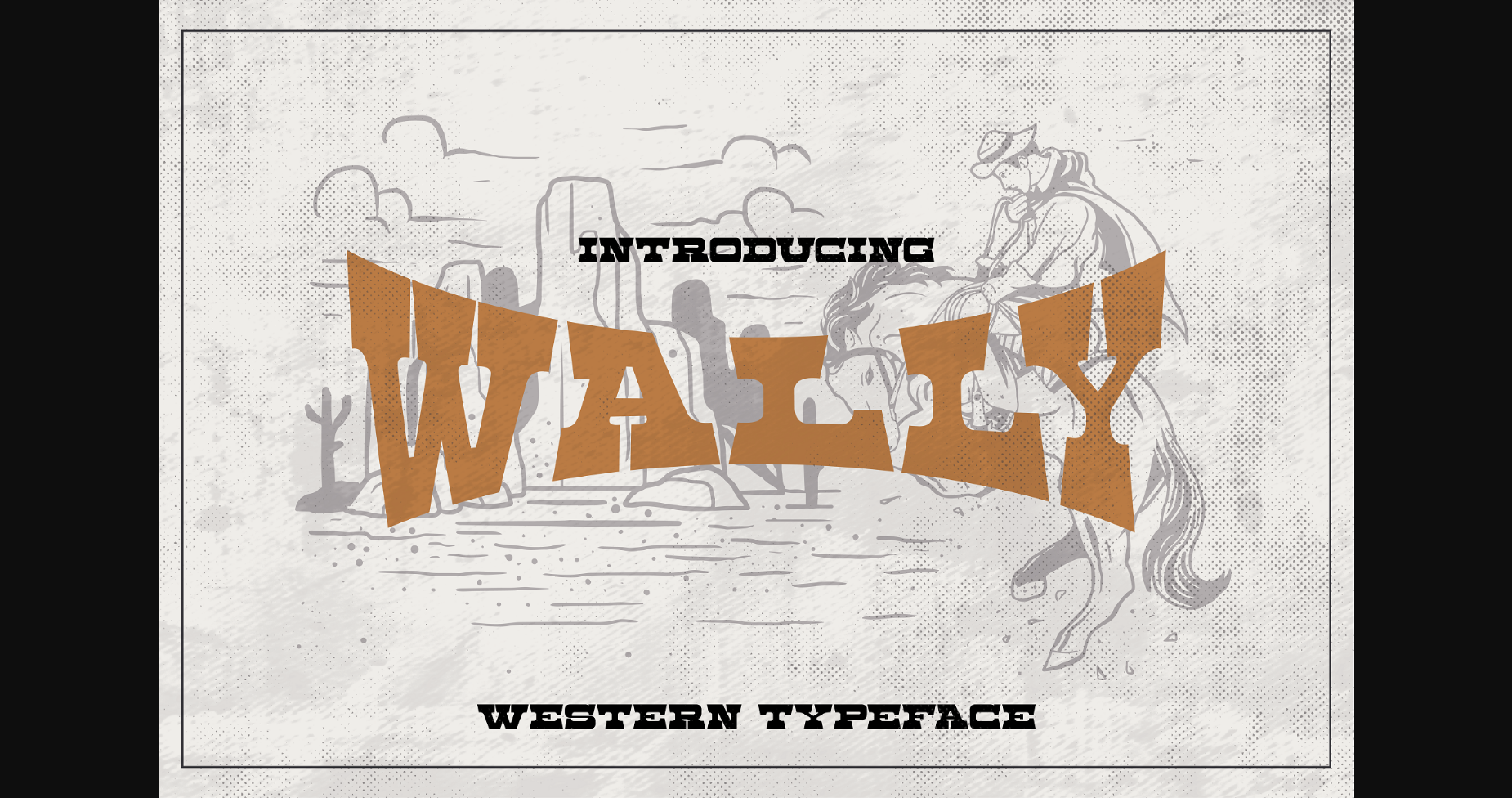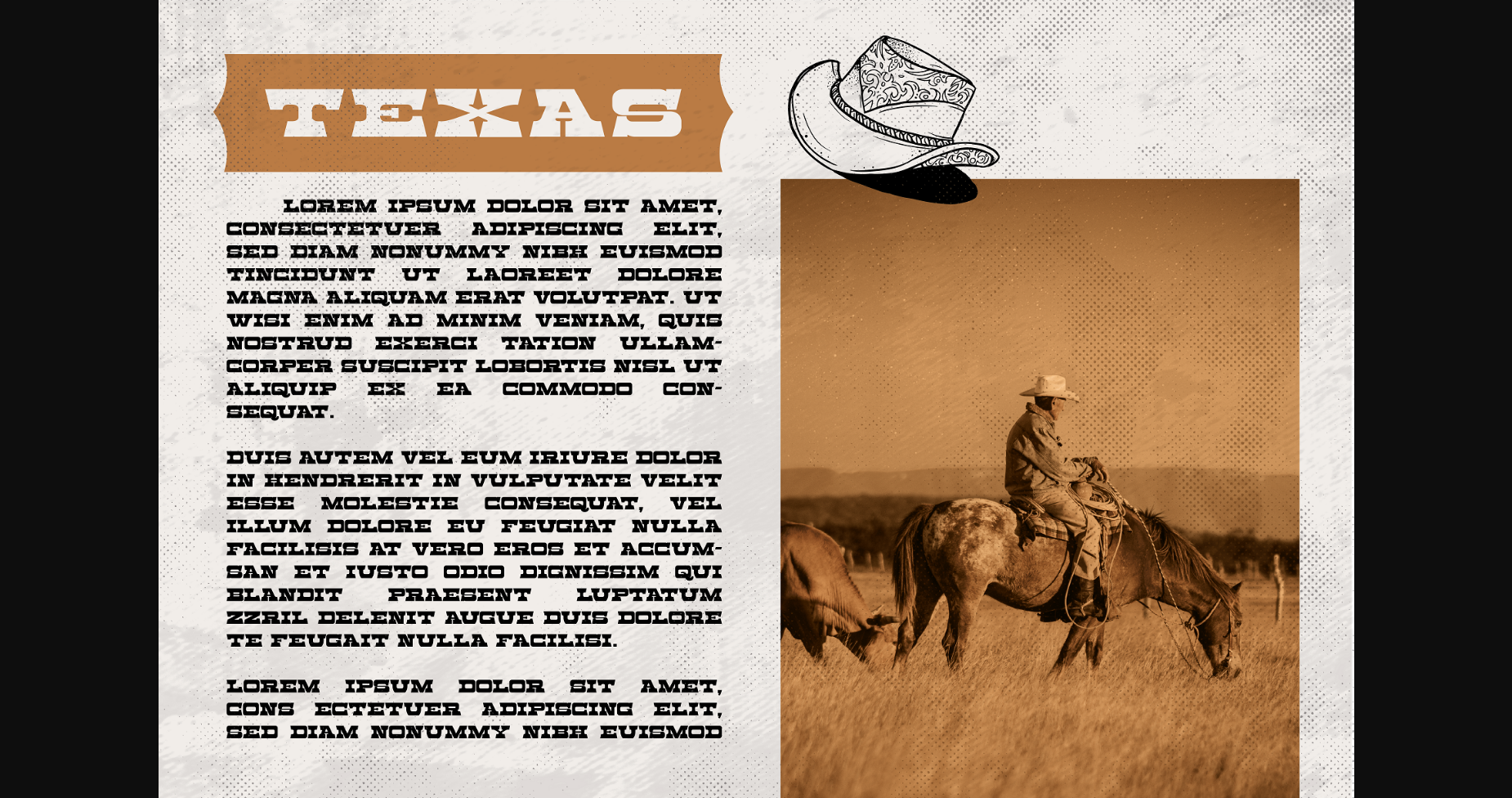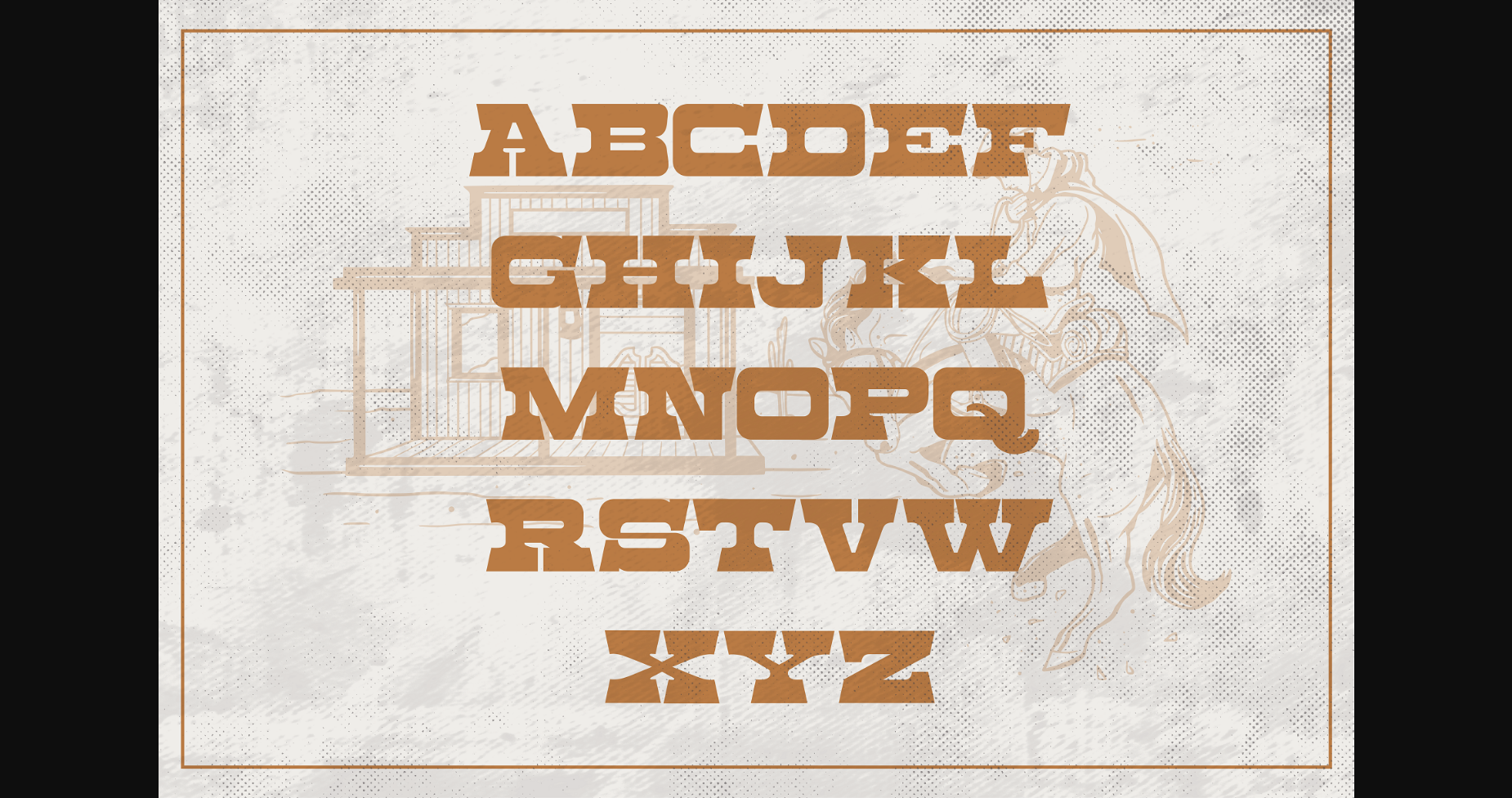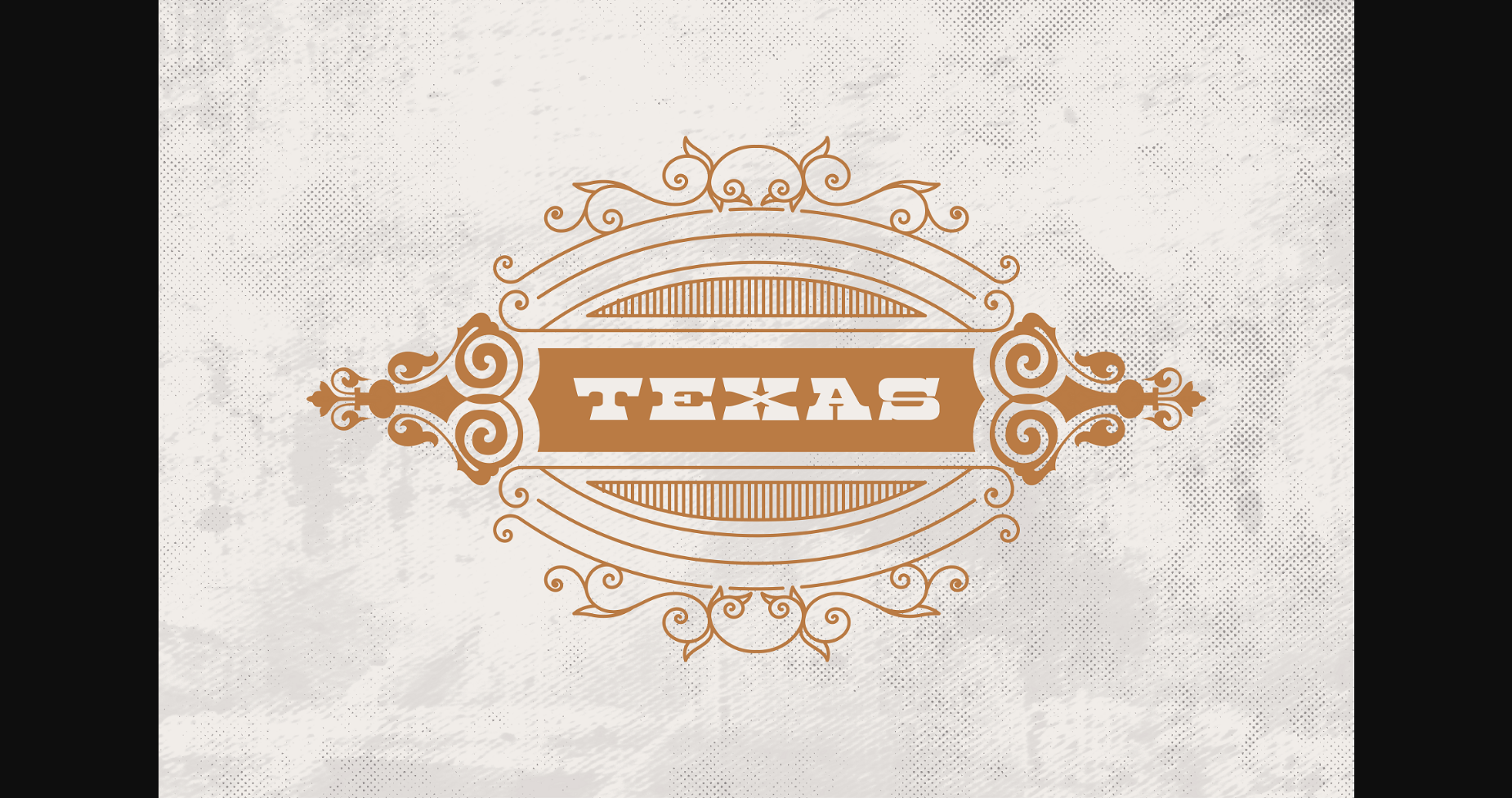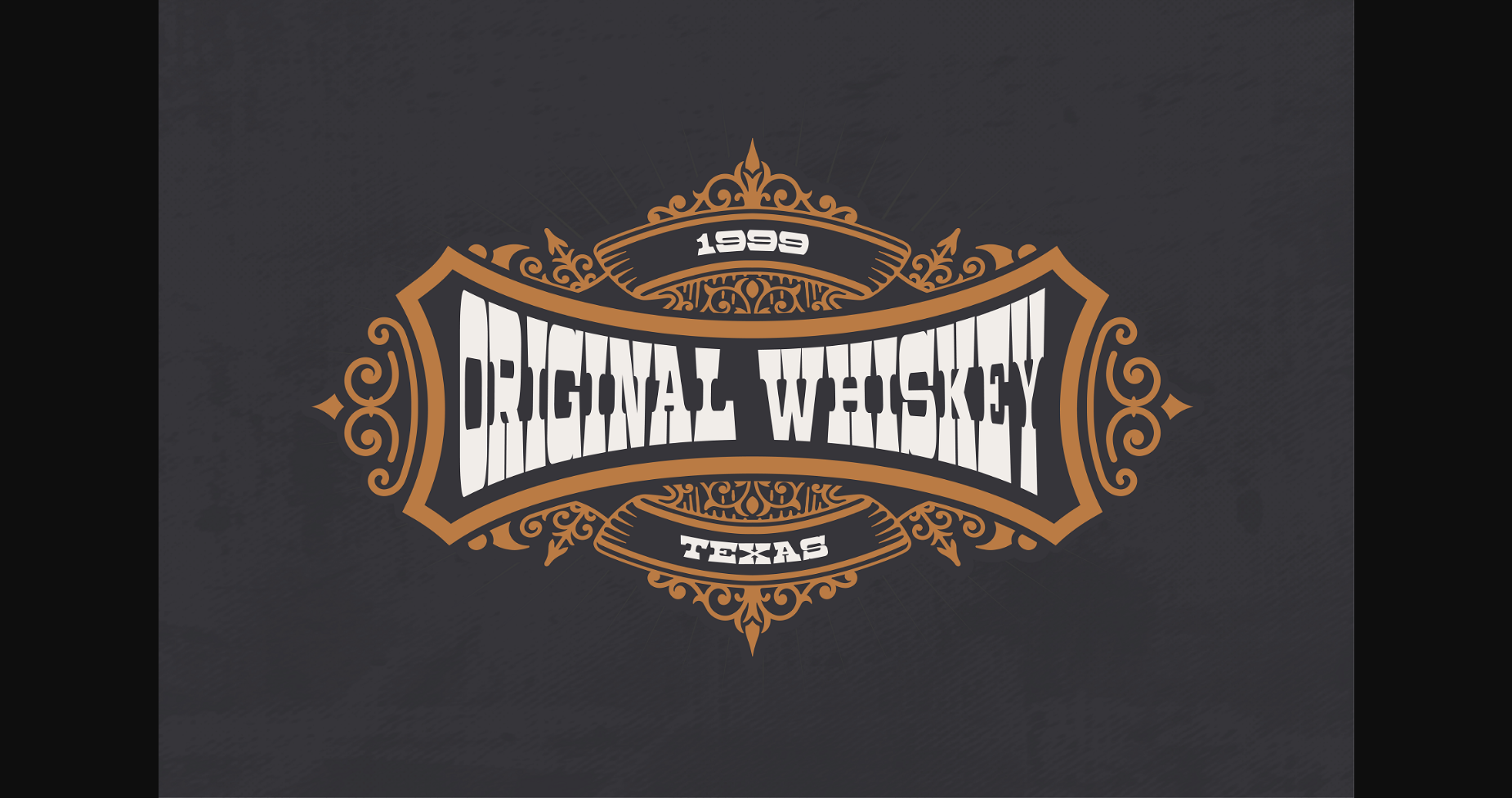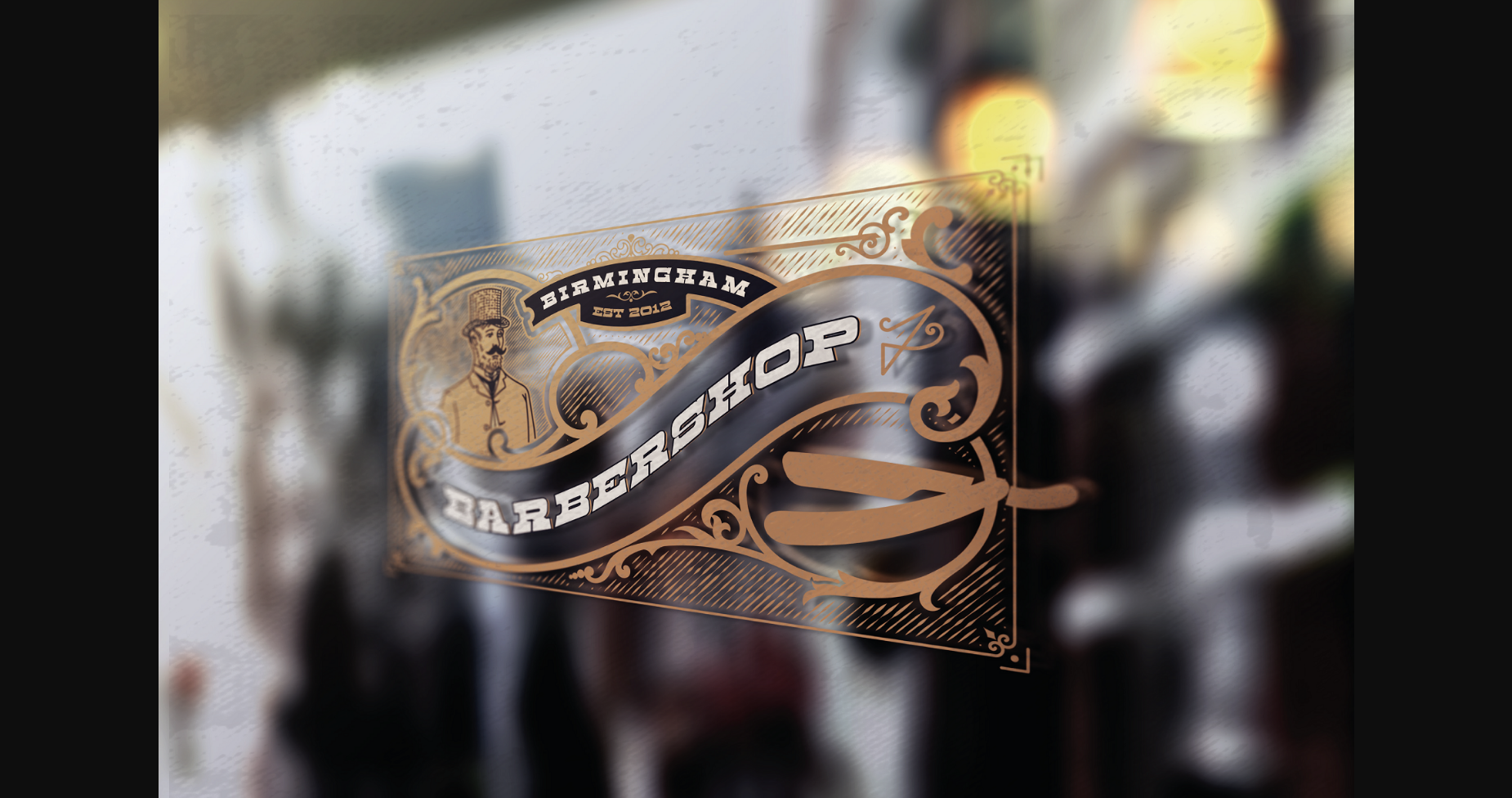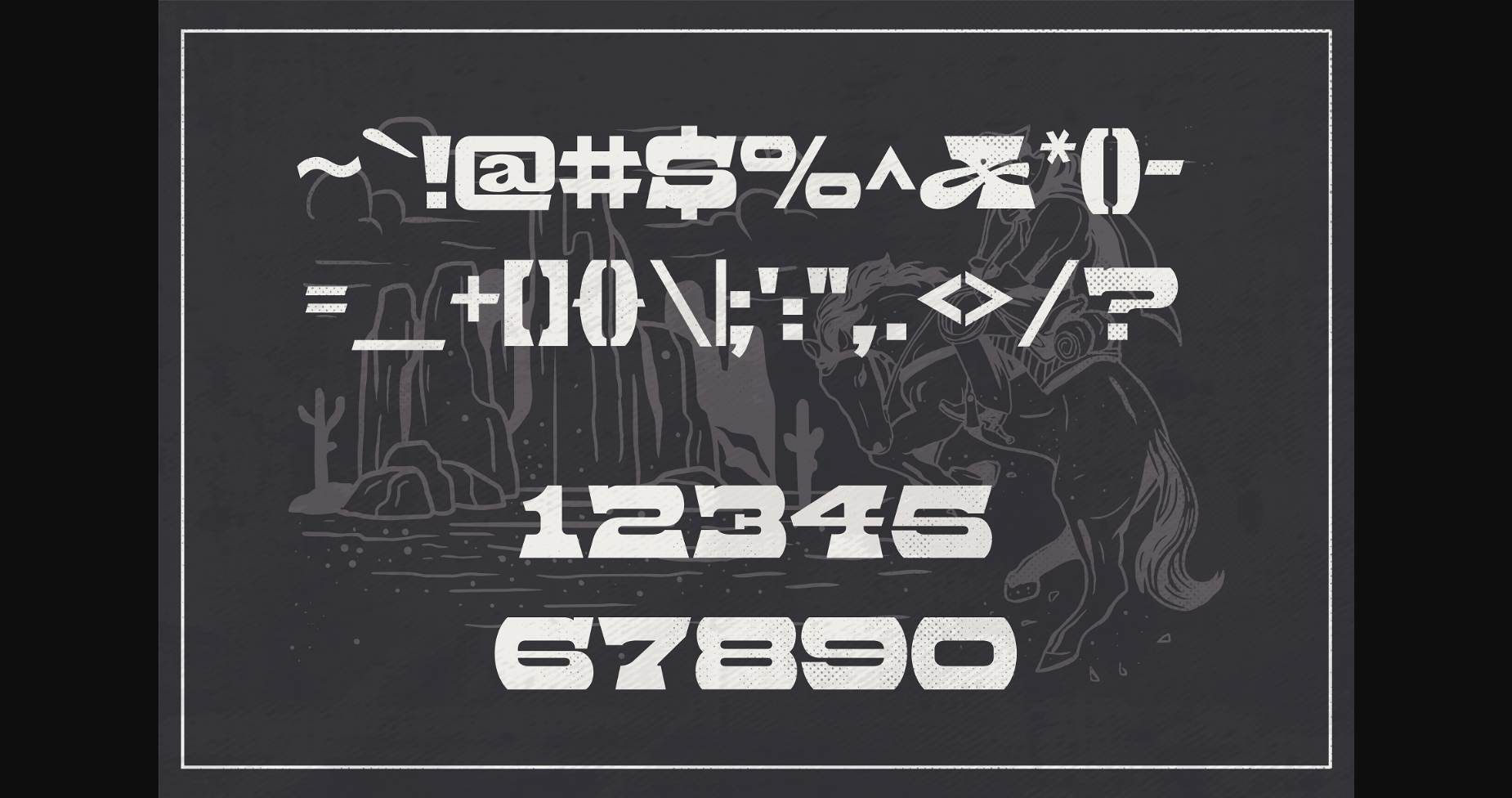
Wally Font
About Wally Font
Wally was inspired by vintage Western movies commonly associated with the Western United States and Northern Mexico. Wally is an all-caps font that’s tactile, bold, and beautiful. It’s perfect for headlines, branding, badges, emblems, labels, posters, and more. If you’re looking for a mid-19th-century slab serif typeface, then Wally is for you!